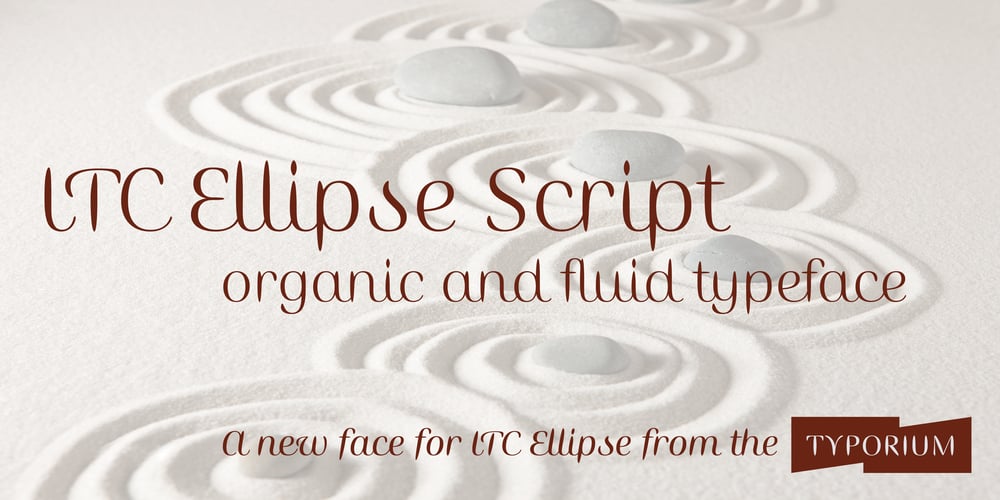
ITC Ellipse Script Font Family was designed by Jean-Renaud Cuaz and published by Typorium. ITC Ellipse Script contains 10 styles and family package options. The Typorium presents a new optimized and enriched version of ITC Ellipse which first appeared in 1996 in the International Typeface Corporation typeface library. ITC Ellipse Script is a complementary typeface to ITC Ellipse Neo, designed a very legible handwriting style.ITC Ellipse Script is both modern and classic. Modern in the unusual shape based on the geometric ellipse form. And classic in the structure of some letters like the lower cases c, e, g, o, s. These letters alone could come from a traditional typeface, but they fit perfectly with the atypical rest of the alphabet giving it a present-day and traditional mix. Furthermore, the ellipse shape fits naturally in the italic styles, giving the font an organic and fluid feeling.ITC Ellipse Script offers OpenType features such as alternate characters for upper and lower case, and an extended accented character set to support many languages. Five weights have been created for each style to offer a wide range of graphic possibilities in a tidy digital footprint.Designer: Jean-Renaud CuazPublisher: TyporiumMyFonts debut: Nov 1, 2020Le Typorium présente une nouvelle version optimisée et enrichie d’ITC Ellipse qui est apparue pour la première fois en 1996 dans la bibliothèque de caractères de l’International Typeface Corporation. ITC Ellipse Script est une police complémentaire à ITC Ellipse Neo, conçue dans un style d’écriture très lisible.ITC Ellipse Script est à la fois moderne et classique. Moderne dans le dessin inhabituel basé sur la forme géométrique de l’ellipse. Et classique dans la structure de certaines lettres comme les minuscules c, e, g, o, s. Ces lettres pourraient provenir d’une police de caractères traditionnelle, mais elles s’intègrent parfaitement avec le reste de l’alphabet plus insolite en lui donnant un mélange de modernité et de tradition. De plus, la forme de l’ellipse s’intègre naturellement dans les styles italiques, donnant à la police une sensation organique et fluide.ITC Ellipse Script offre des fonctionnalités OpenType telles que des caractères alternatifs pour les capitales et les bas de casse, et un jeu de caractères accentués étendu pour prendre en charge de nombreuses langues. Cinq graisses ont été créés pour chaque style afin d’offrir un large éventail de possibilités graphiques pour une empreinte numérique rigoureuse.